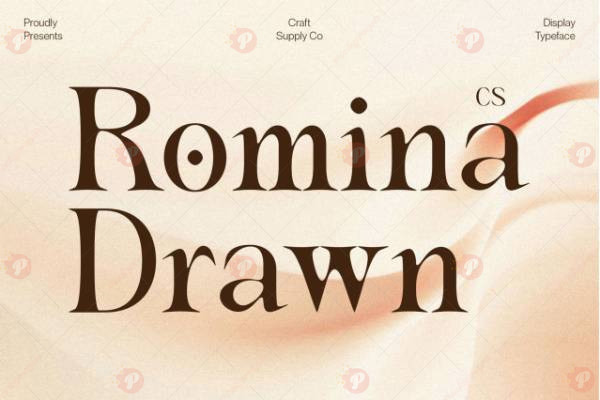
The CS Romina Drawn Font Free is a hand-drawn display typeface designed with a sketchy, artistic, and handmade style. Its natural strokes bring a playful and authentic look, making it perfect for posters, logos, packaging, invitations, book covers, kids’ projects, and social media graphics.
With its handcrafted personality and strong readability, this font stands out in both print and digital designs. Whether you are working on branding, creative campaigns, or packaging design, the CS Romina Drawn Font Free will give your work a unique handmade charm.
Typeface: Hand-Drawn / Display Typeface
Style: Artistic / Playful / Handmade
Perfect for: Posters, Logos, Invitations, Kids’ Projects, Packaging, Social Media Graphics, Book Covers